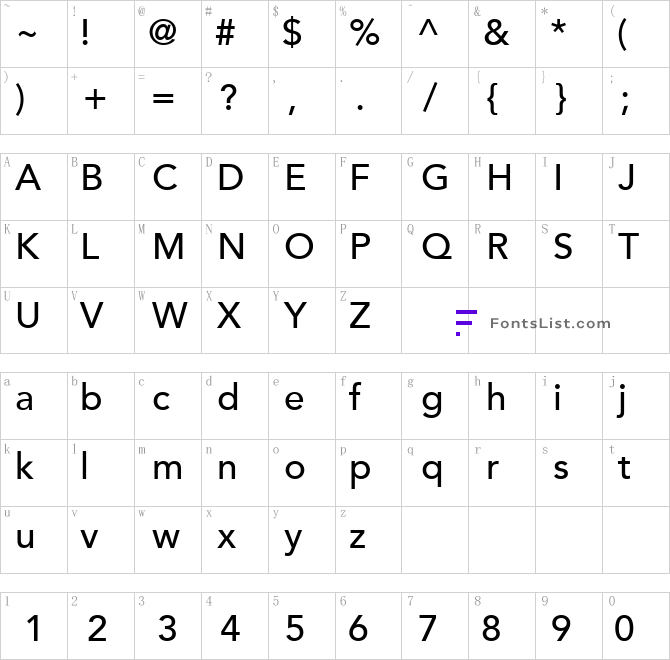
- Font Name:Avenir LT 65 Medium
Avenir-LT-65-Medium.ttf is a very beautiful artistic font, Avenir-LT-65-Medium.ttf is widely used in the design and printing of various books and pictures,Avenir-LT-65-Medium.ttf has a strong visual impact,Avenir-LT-65-Medium.ttf is a commonly used font in newspapers, magazines and books, and is used in posters, e-commerce Poster design, store design, logo design, font design and other fields.Avenir-LT-65-Medium.